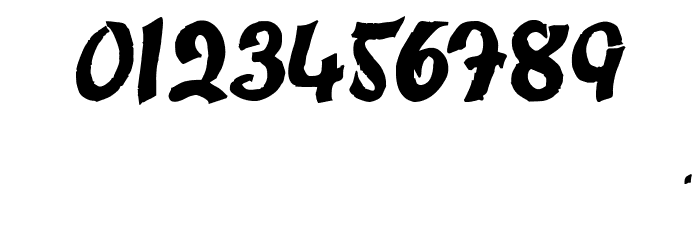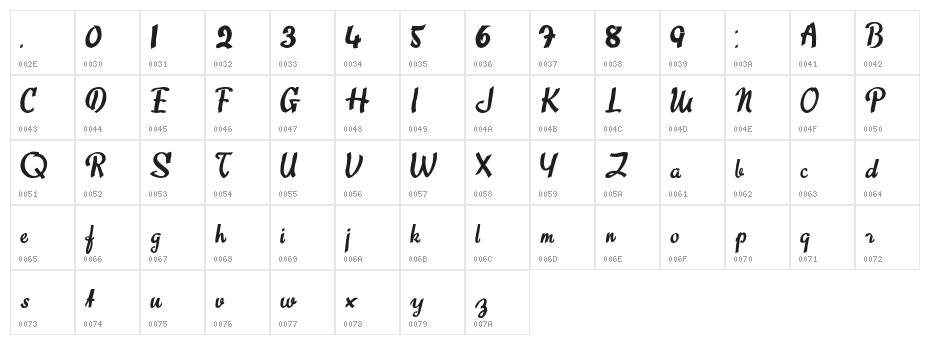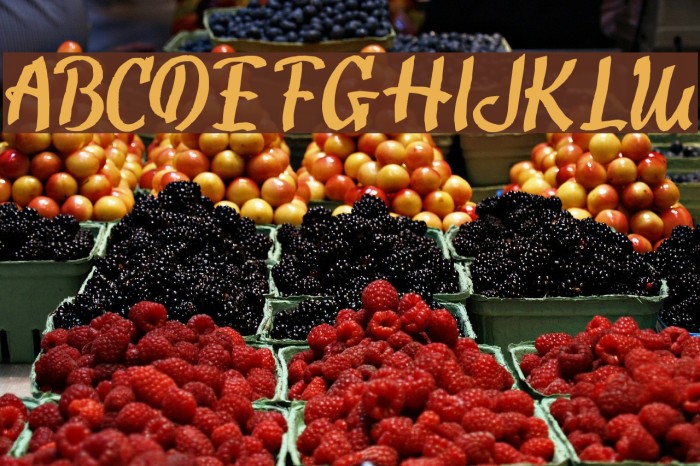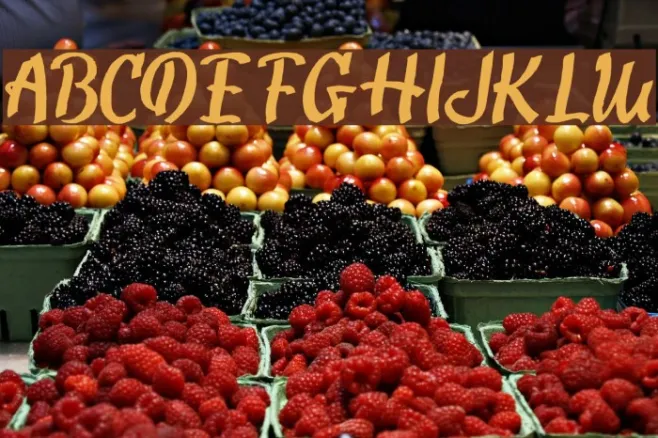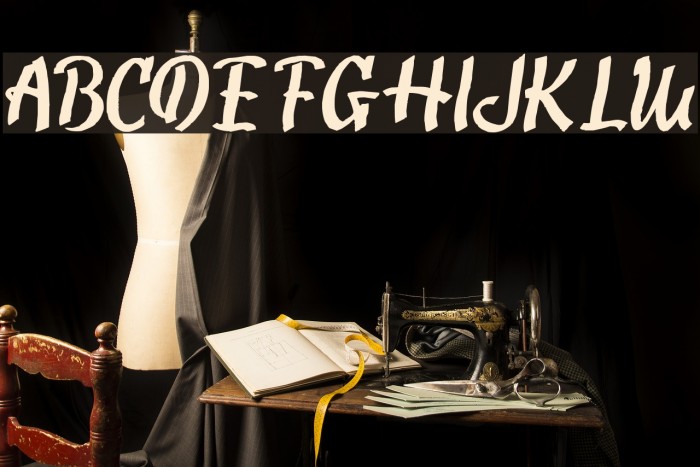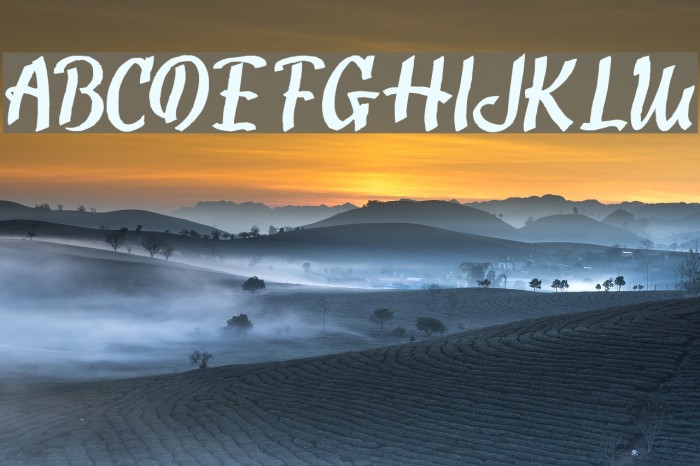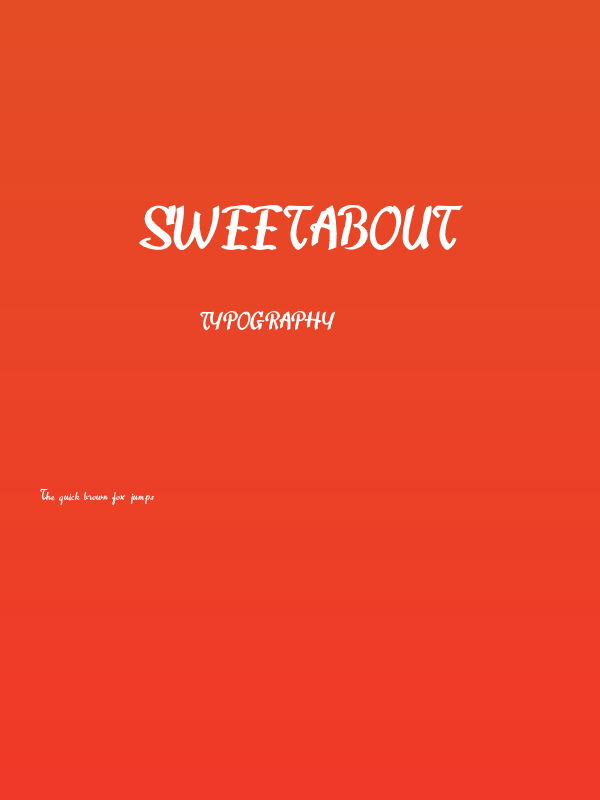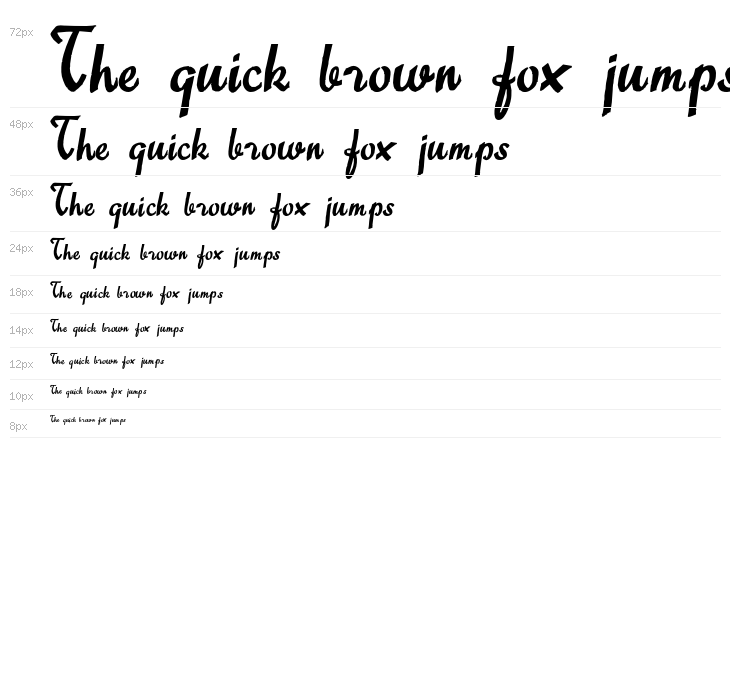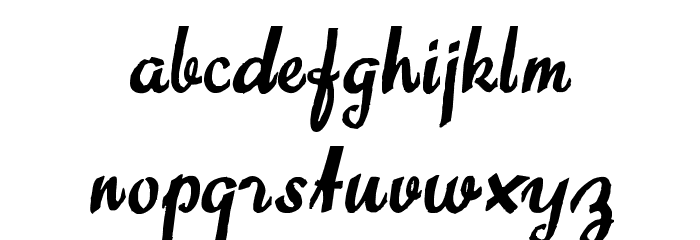
SweetAbout Font
SweetAbout Description
This font features a bold and dynamic script style with a strong presence. The uppercase letters are characterized by sweeping curves and a sense of motion, while the lowercase letters maintain a cohesive flow with slightly more restrained strokes. The numbers are bold and consistent with the overall style, providing a sense of continuity. The special characters are integrated seamlessly, maintaining the font's energetic and expressive nature. The overall design is both artistic and legible, making it suitable for a variety of creative applications.
| Proposed Projects | Ideal for branding, logo design, posters, and invitations where a bold and artistic touch is desired. |